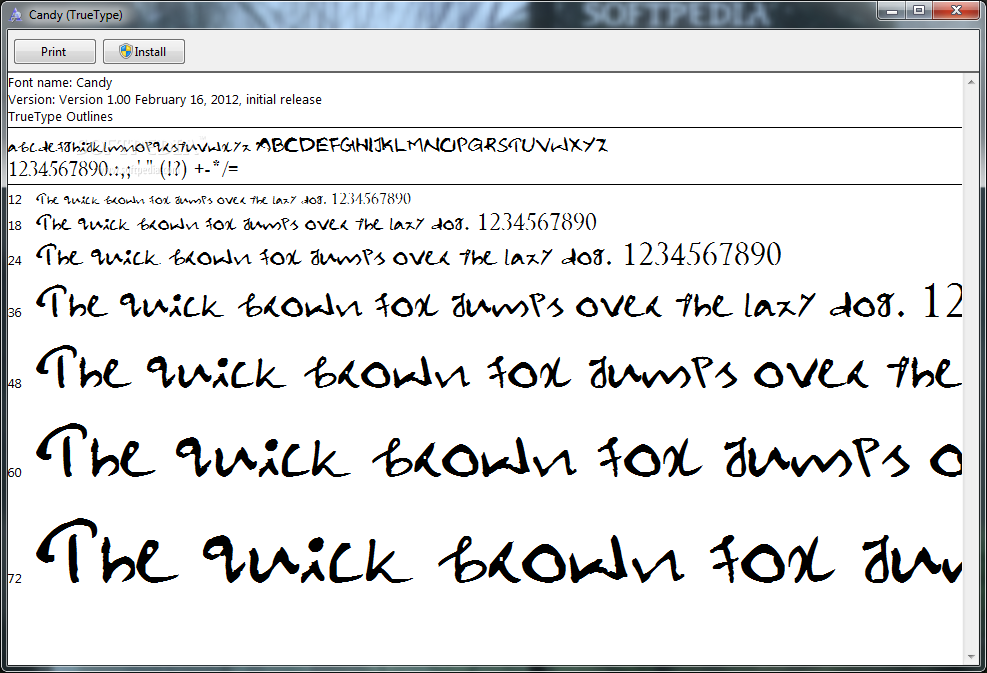
Candy font is a unique true type font. The Candy font allows you to add a new and interesting font to your text editors.
This font will give a new look to typeface.It is an eligent font and is extremely useful while designing/creating pictures in photoshop.Its a handy font if you are designing greeting cards, postcards,personal letters, gifts etc.This will give originality and a new look to your designs.